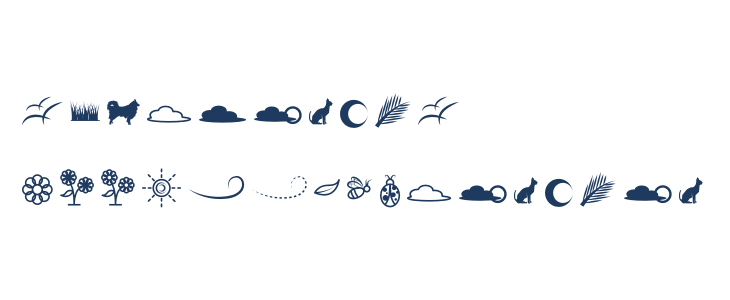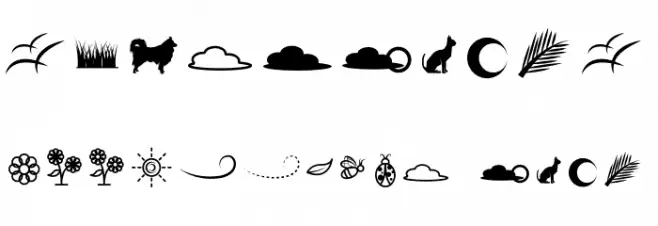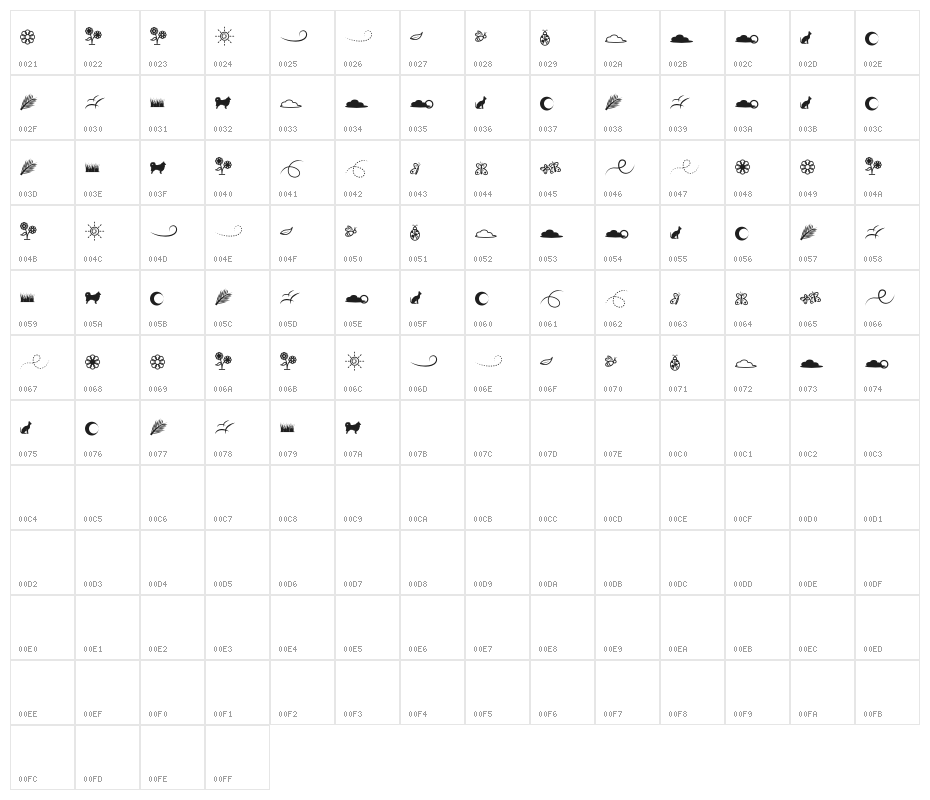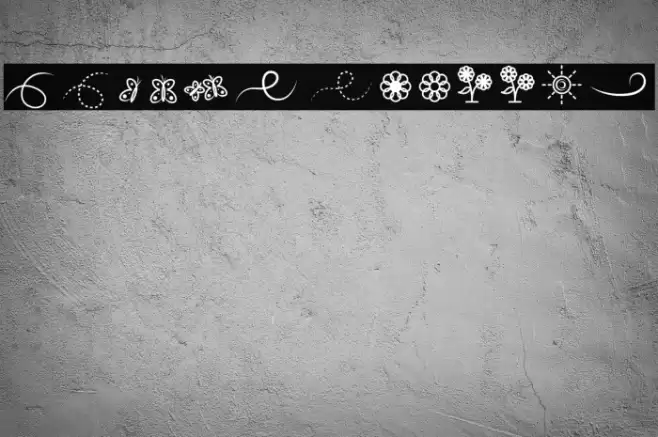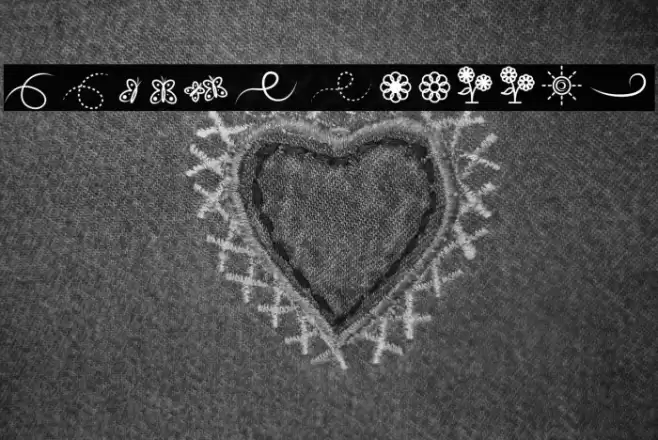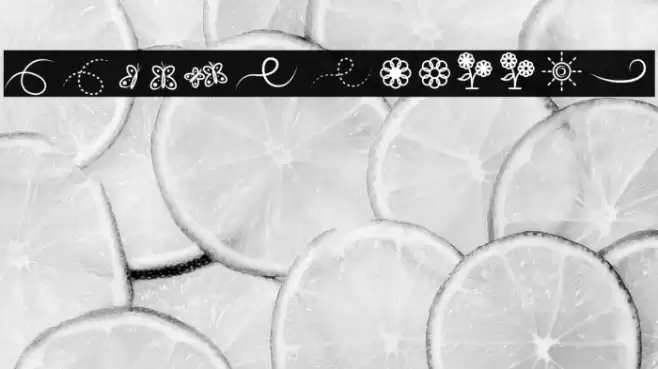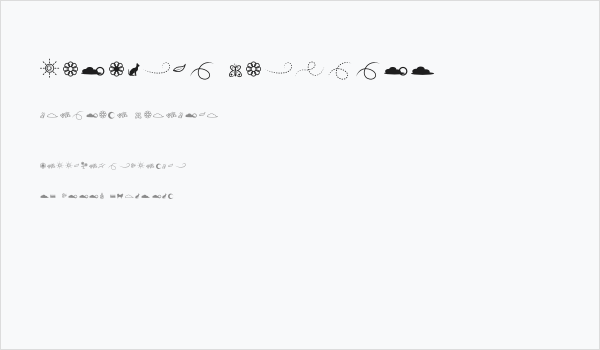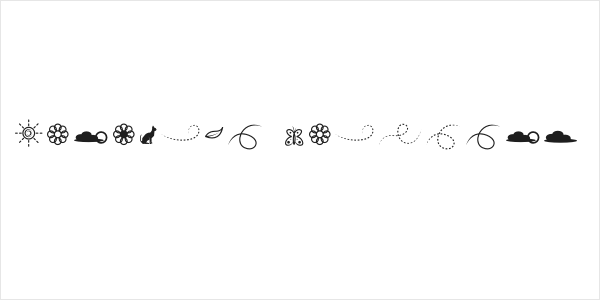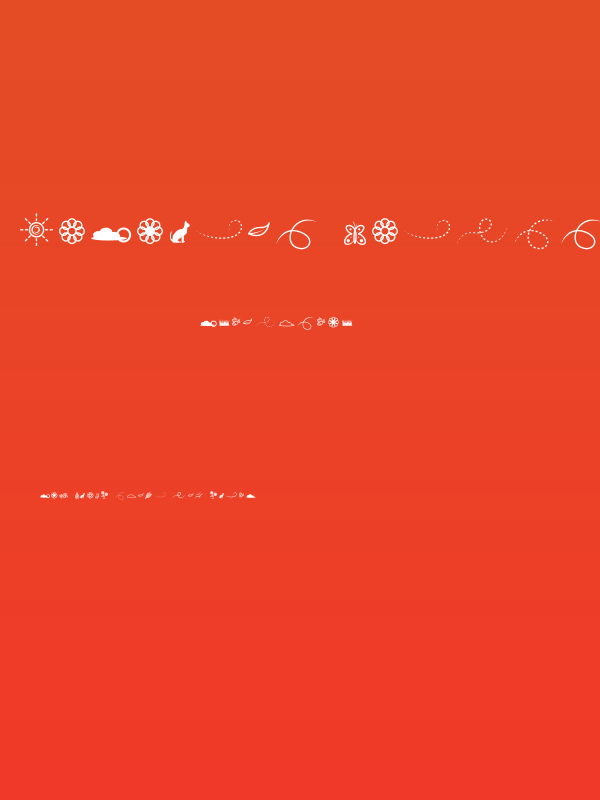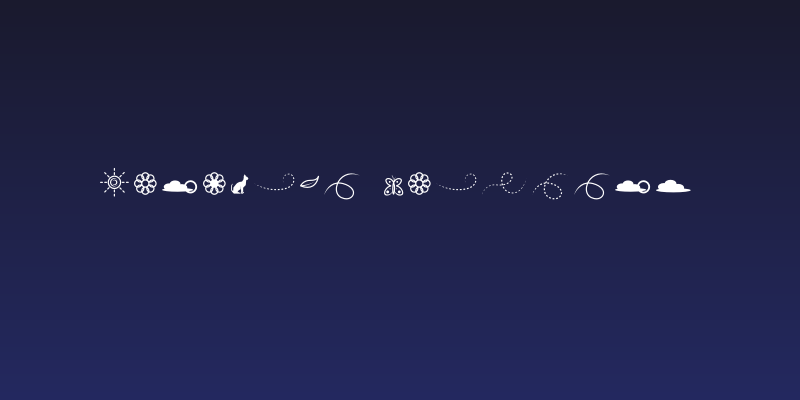
Lithunoa Dingbats Font
Lithunoa Dingbats Description
This collection features a variety of whimsical and nature-inspired dingbats. The symbols include butterflies, flowers, clouds, animals, and decorative swirls, each crafted with a playful and artistic flair. The designs are bold and clear, making them suitable for a range of creative projects. The elements are well-balanced, offering a mix of intricate details and simple shapes that can enhance visual storytelling. These dingbats can be used to add a touch of nature and creativity to any design, from invitations to digital art.
| Overall Style | Whimsical |
| Use Case | Decorative elements, Art projects |
| Proposed Projects | Ideal for greeting cards, scrapbooking, digital art, and decorative borders. |